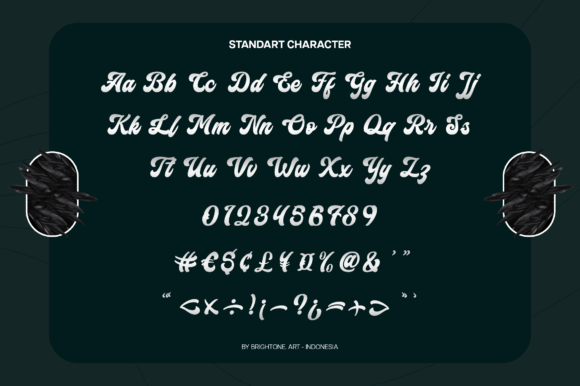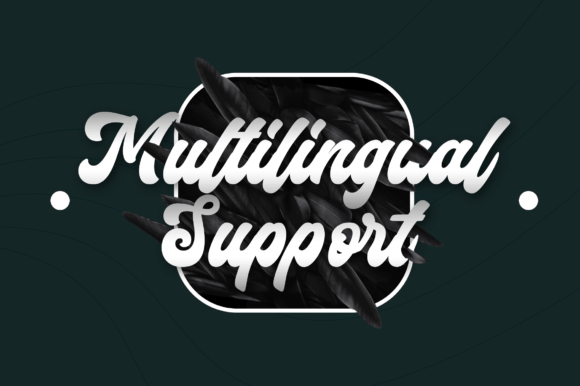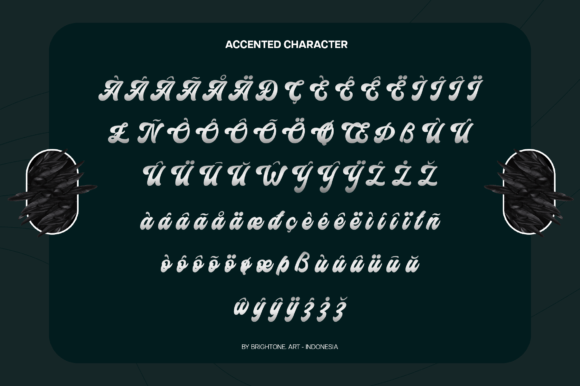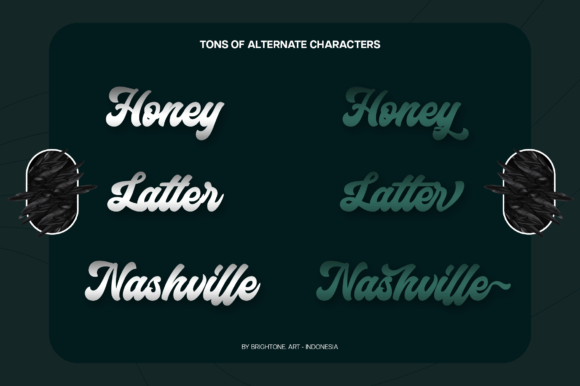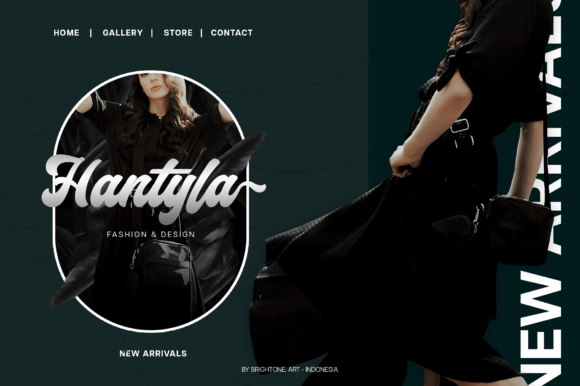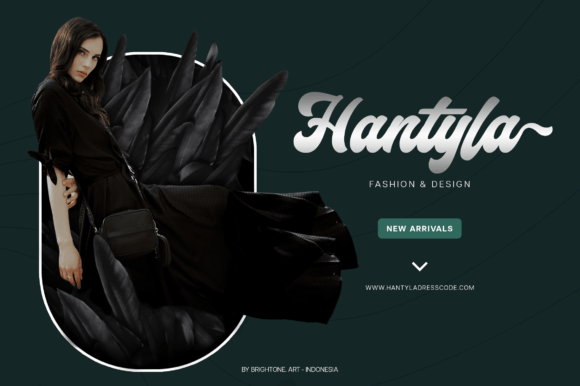
Introducing Butterheads Font: A Bold Handwritten Script Font for Creative Projects
Are you a designer or crafter looking for a unique and stylish font to elevate your creative projects? Look no further than Butterheads Font, a bold handwritten script font that combines classic and modern script calligraphy. This stunning typeface is perfect for a variety of applications, including logo lettering, logos, labels, packaging, stickers, branding, and more.
What Makes Butterheads Font Special?
Butterheads Font is a carefully crafted font that is both elegant and bold. Its unique blend of classic and modern script calligraphy makes it stand out from other fonts. The font is adapted from traditional calligraphy, giving it a timeless feel that will add a touch of sophistication to any project. At the same time, its modern twist ensures that it remains fresh and contemporary.
Key Features of Butterheads Font
So, what makes Butterheads Font so special? Here are just a few of its key features:
- Bold and Elegant: Butterheads Font is a bold and elegant font that makes a statement. Its thick strokes and flowing lines give it a luxurious feel that’s perfect for high-end branding and design projects.
- PUA Encoded: This font is PUA (Private Use Area) encoded, which means that you can access all of the glyphs and swashes with ease. This makes it easy to customize your text and add unique touches to your designs.
- Handwritten Script: Butterheads Font is a handwritten script font that has been carefully crafted to look like it was written by hand. This gives it a personal and authentic feel that’s perfect for adding a touch of warmth to your designs.
- Versatile: This font is incredibly versatile and can be used for a wide range of applications, including logo lettering, logos, labels, packaging, stickers, branding, and more.
Uses for Butterheads Font
So, what can you use Butterheads Font for? The possibilities are endless! Here are just a few ideas to get you started:
- Logo Lettering: Use Butterheads Font to create stunning logo lettering that will make your brand stand out.
- Branding: This font is perfect for branding projects, including business cards, letterheads, and more.
- Packaging: Add a touch of elegance to your packaging with Butterheads Font.
- Labels: Use this font to create beautiful labels for your products or gifts.
- Stickers: Create custom stickers with Butterheads Font for a unique and eye-catching look.
Why Choose Butterheads Font?
So, why should you choose Butterheads Font for your next project? Here are just a few reasons:
- Unique and Exclusive: This font is a unique and exclusive design that will help your project stand out from the crowd.
- High-Quality: Butterheads Font is a high-quality font that has been carefully crafted to ensure that it looks great in any application.